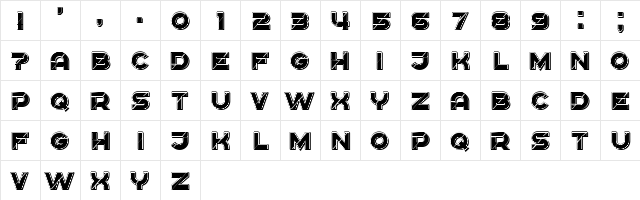
Karambol Filled Regular Free Font
Karambol Filled Regular
Design Context for Karambol Filled
Karambol Filled is a composed and adaptable typeface that performs quietly and consistently across a wide range of design contexts.